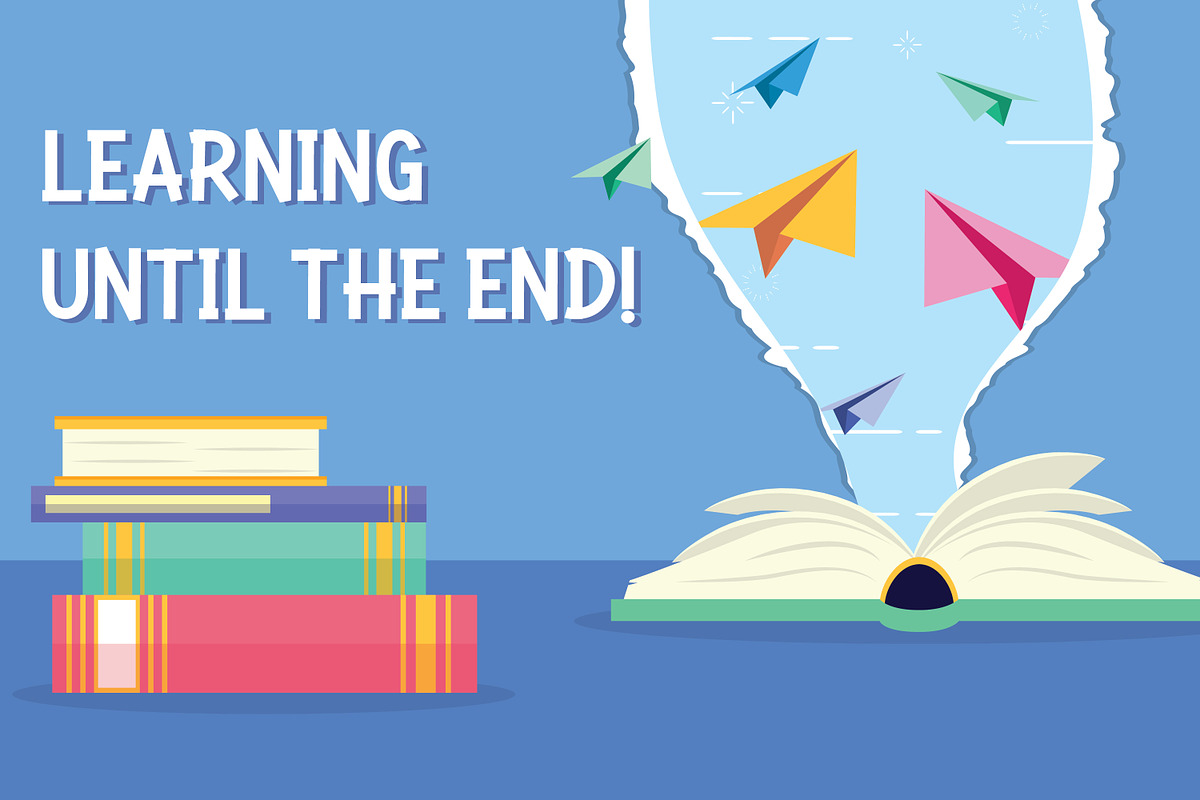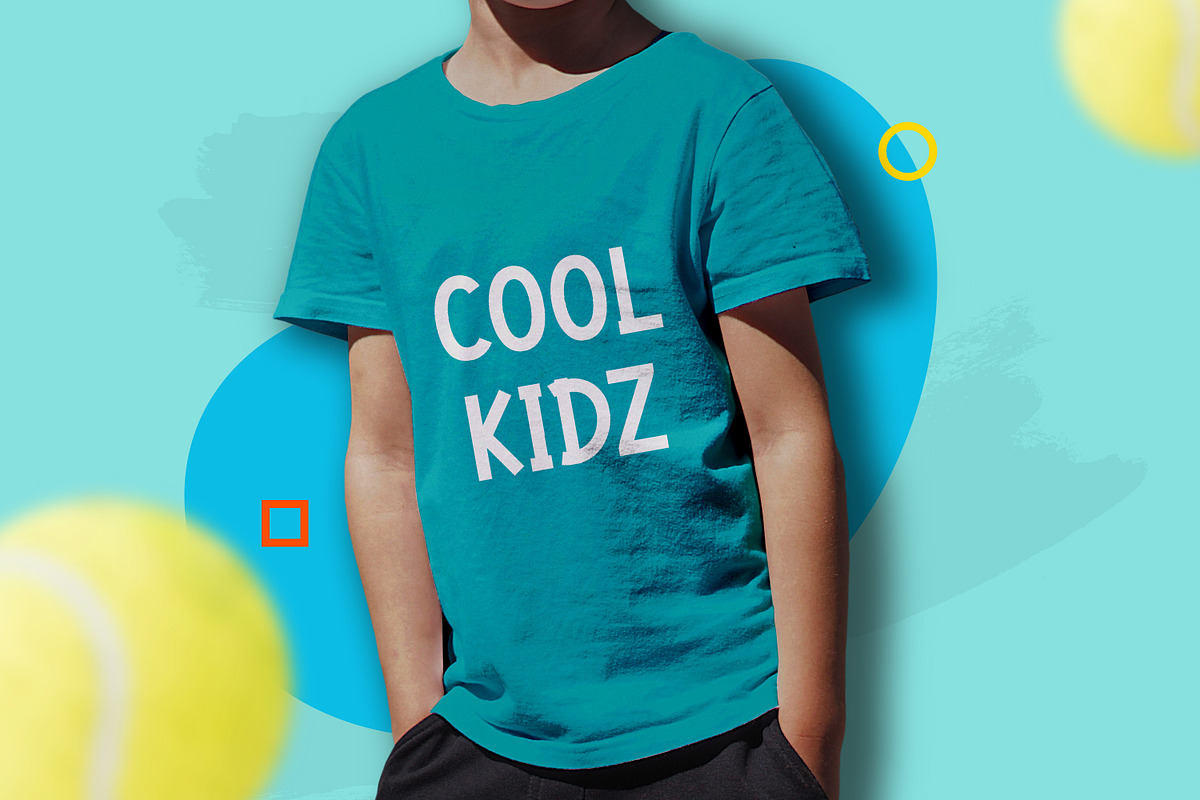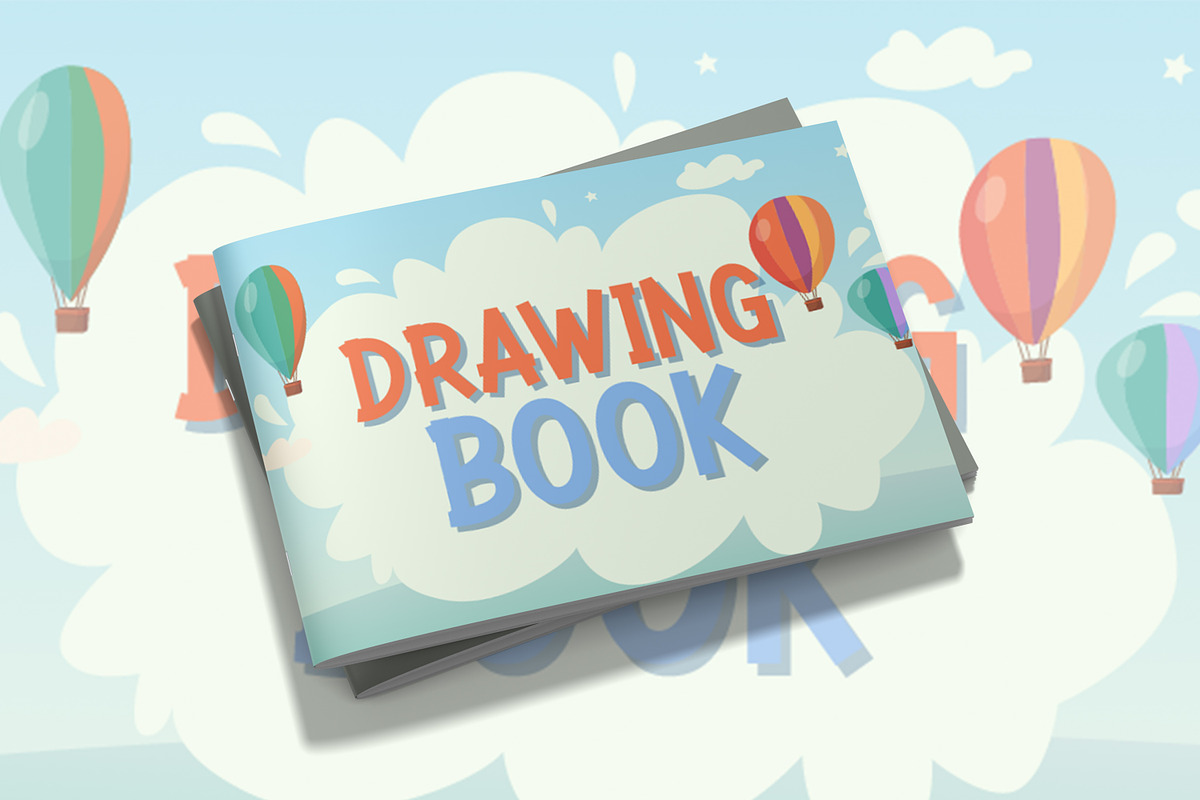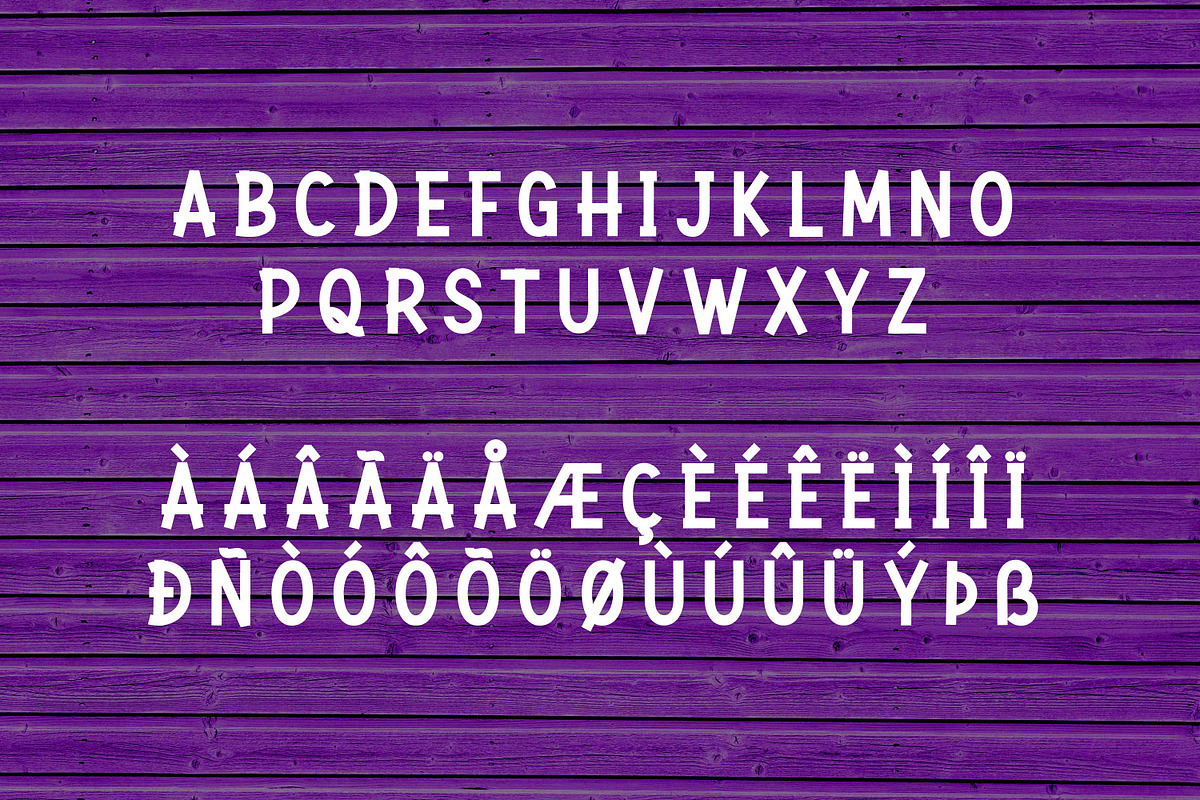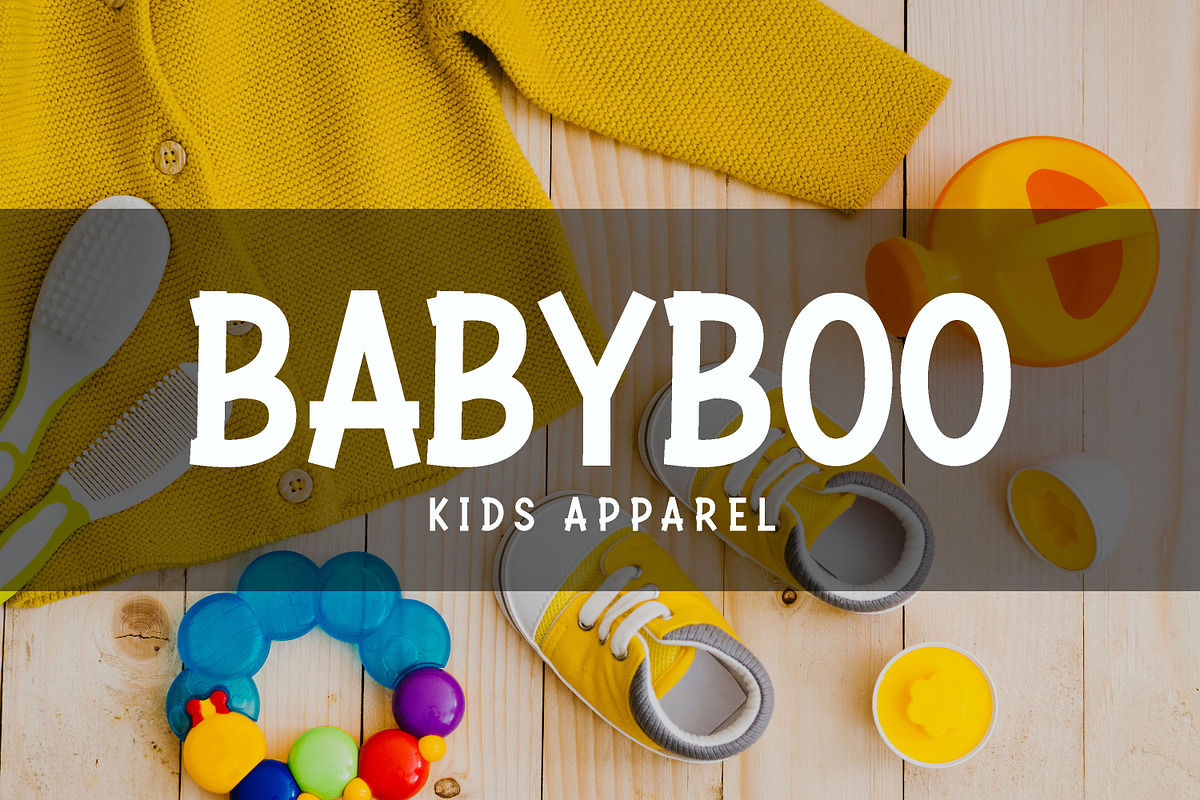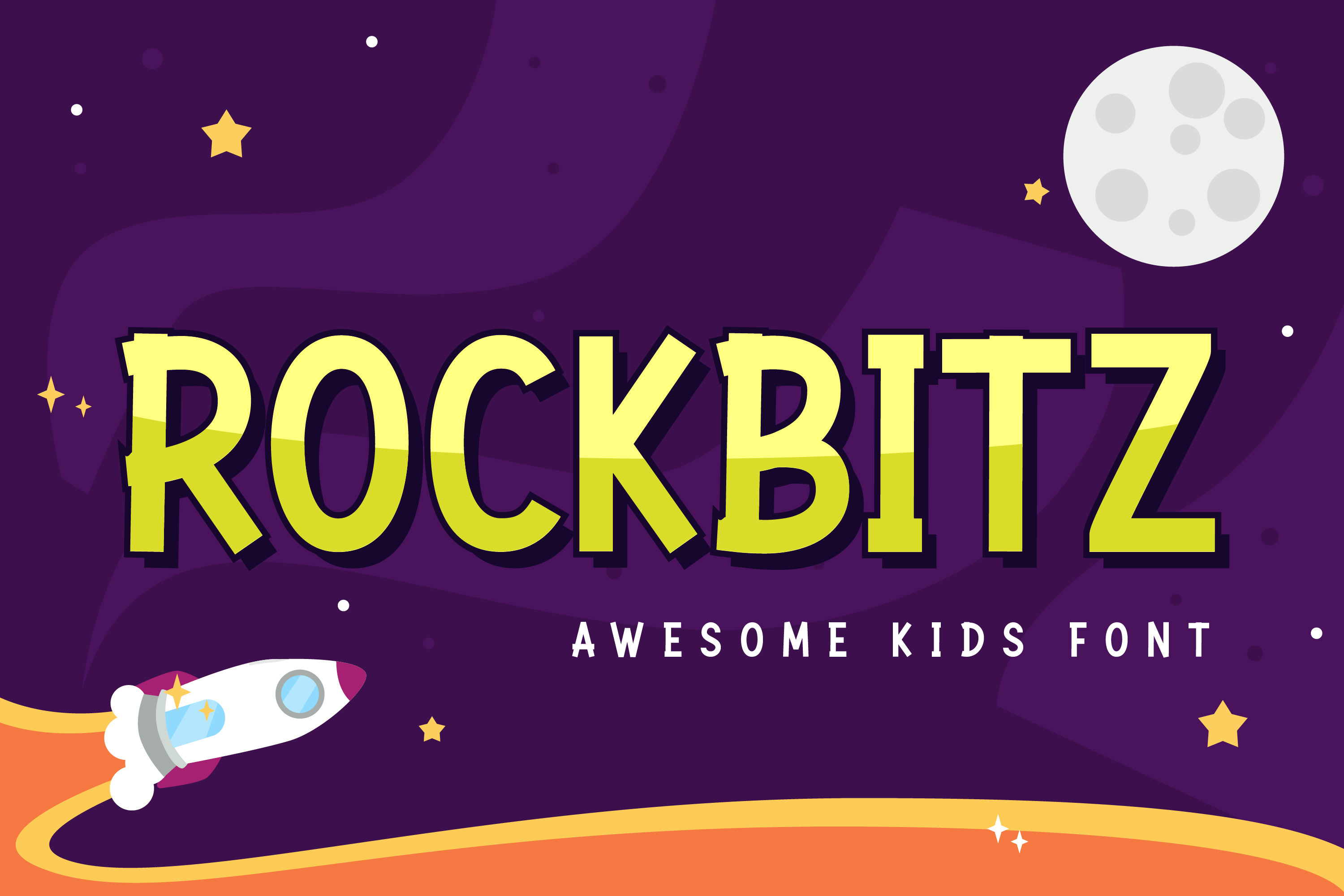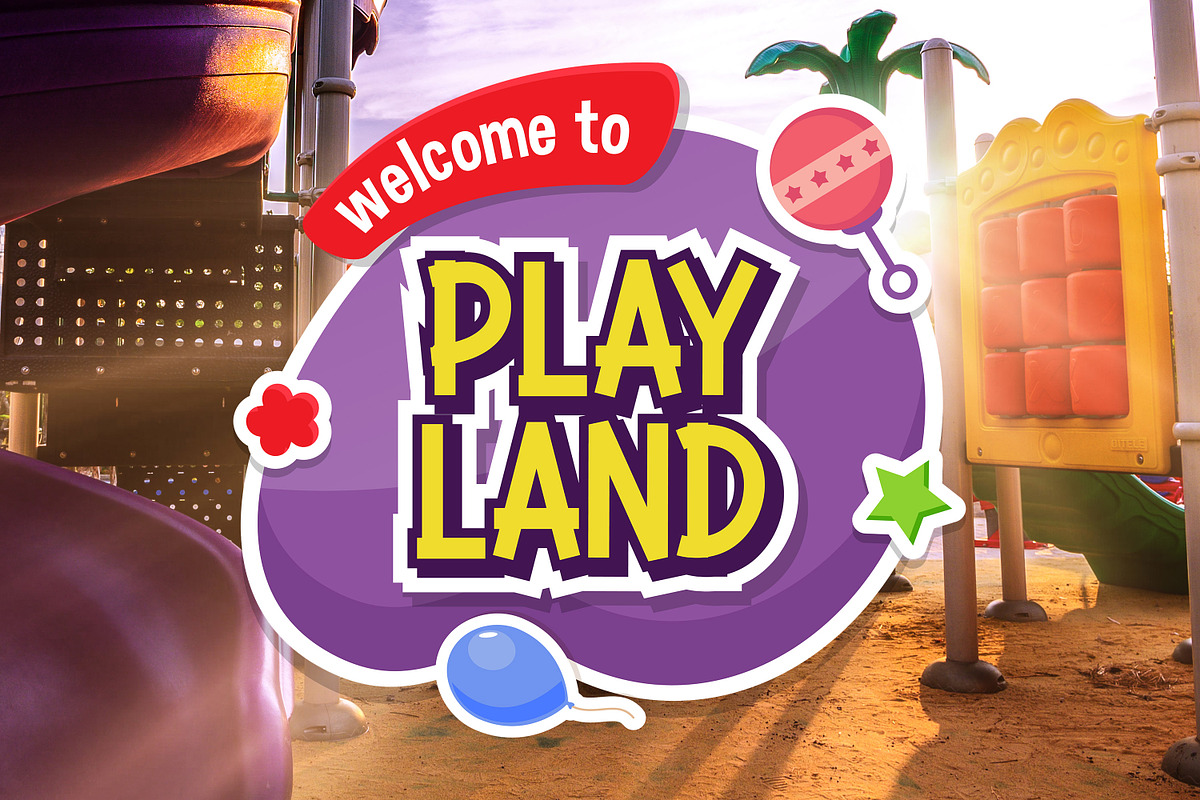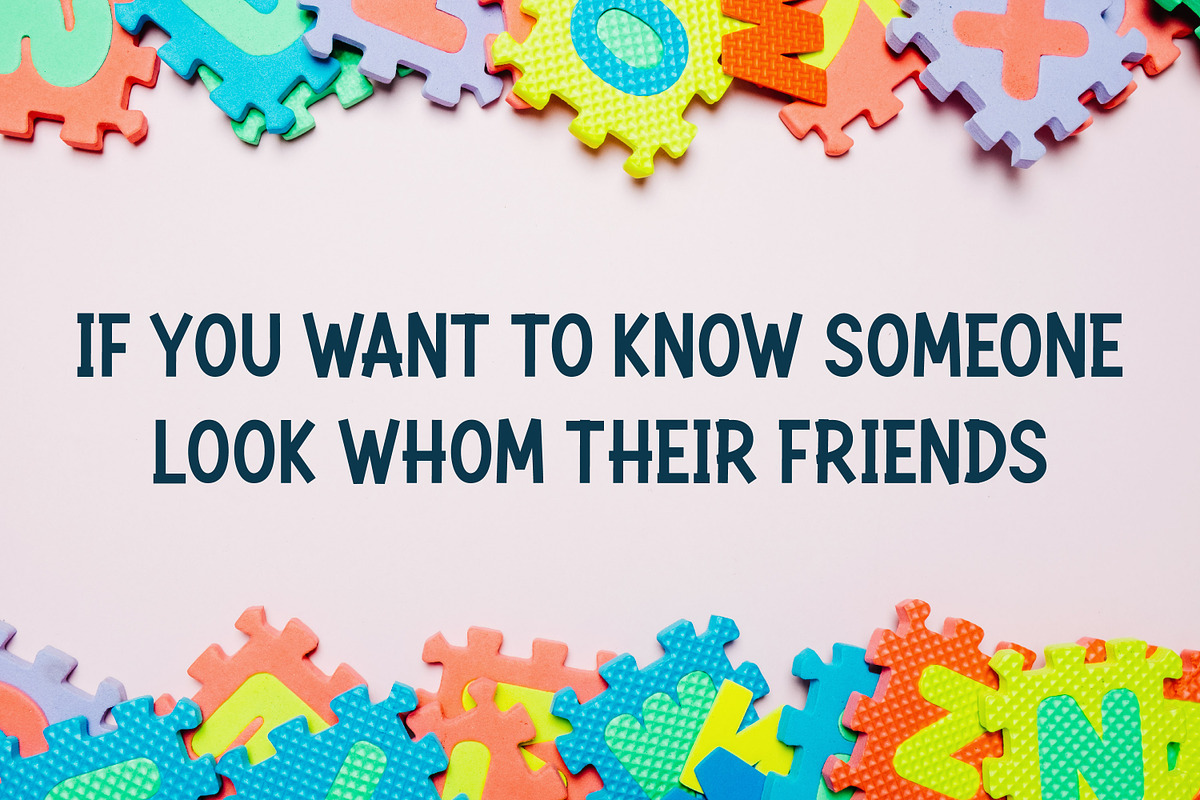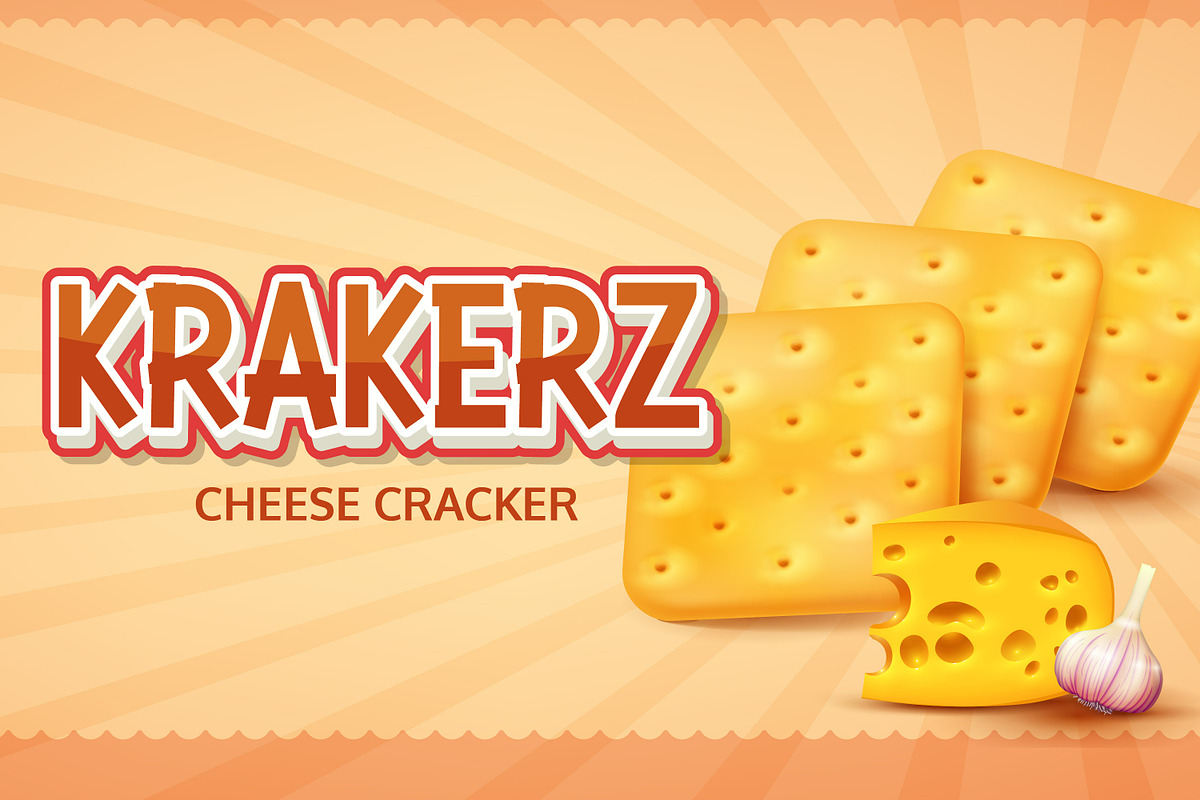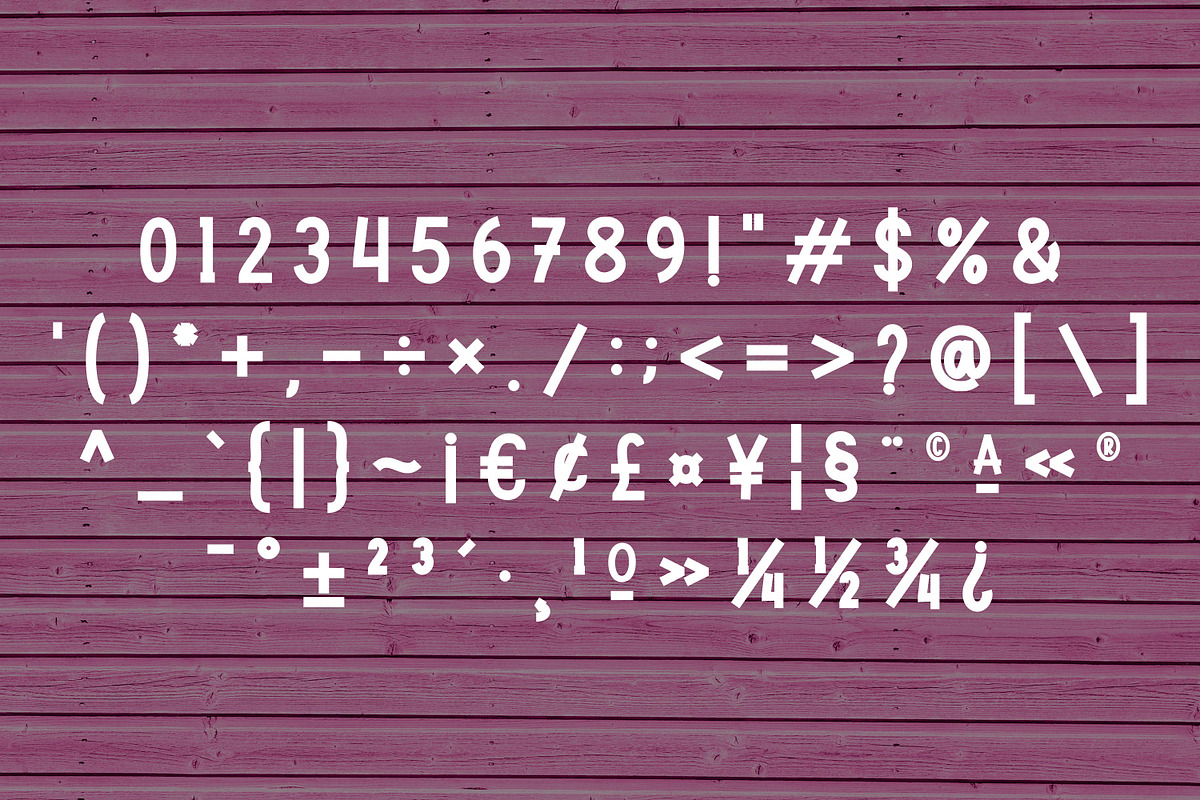
Rockbitz - Awesome Kids Font
Rockbitz is a cute & playful font that will make your design looks modern, unique and fun.
Perfect for labels, quotes, posters, DIY projects, branding, packaging, greeting cards, websites, photos, kids photography , signs, window art, scrapbooking, tags and so much more!